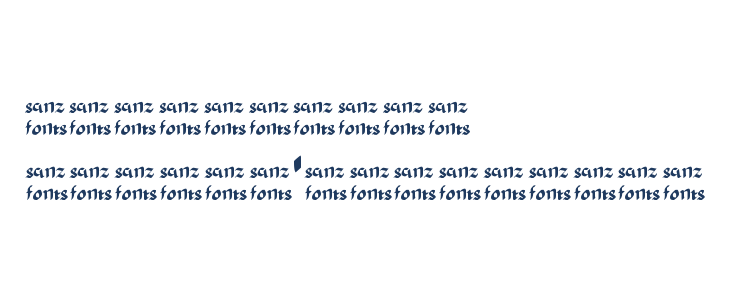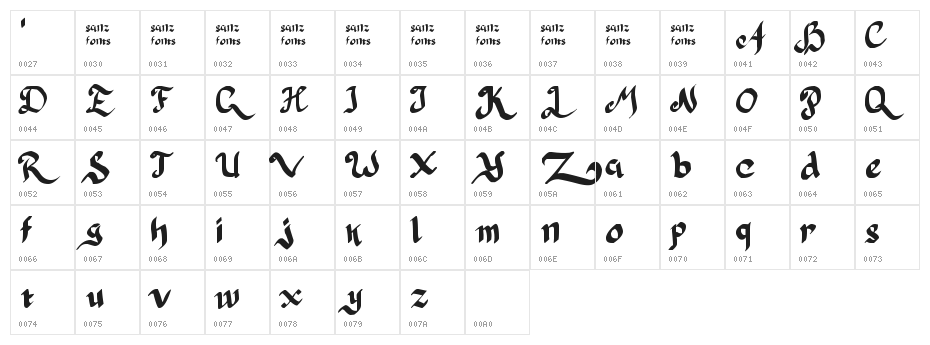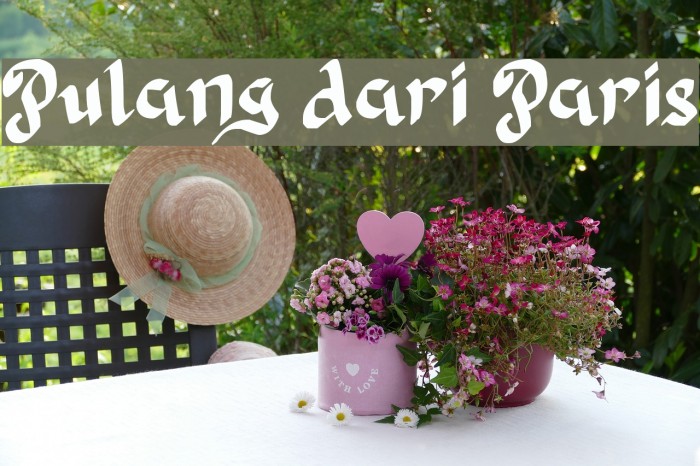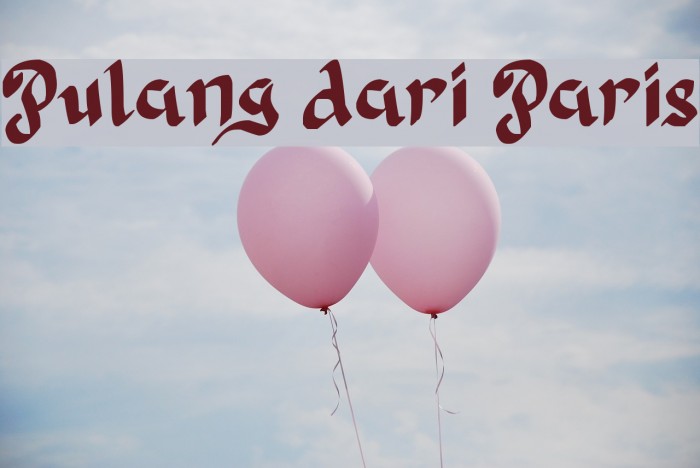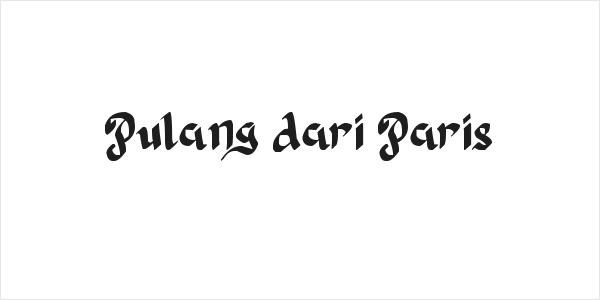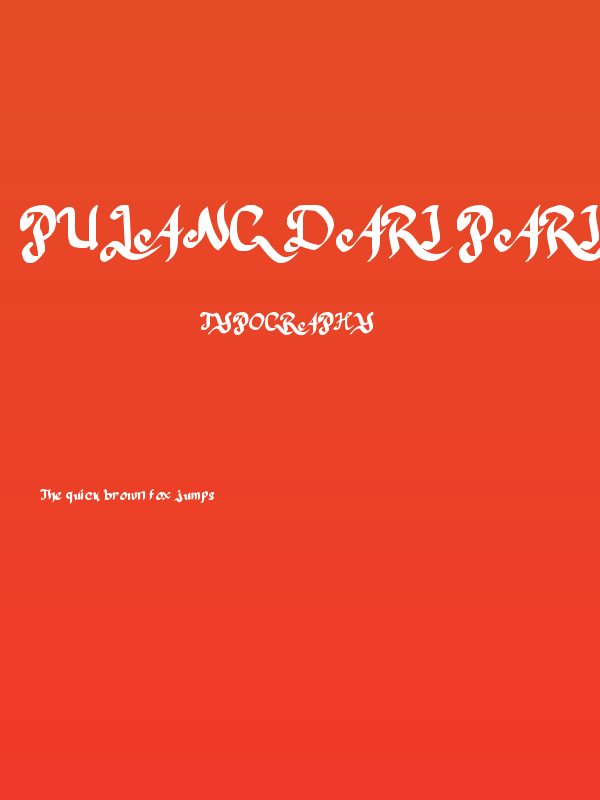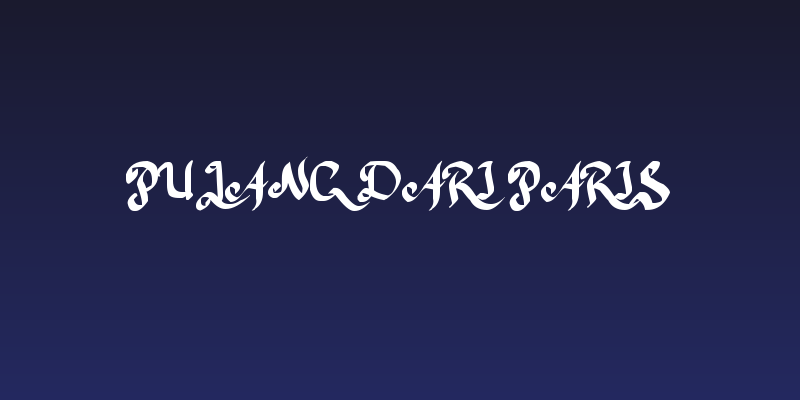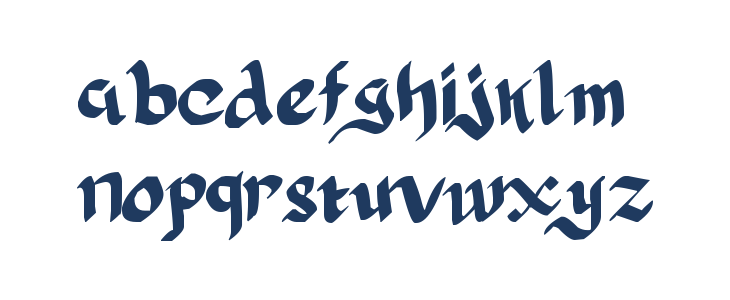
Pulang dari Paris Font
Pulang dari Paris Description
This font is a striking example of Blackletter style, characterized by its dramatic, angular strokes and intricate detailing. The uppercase letters exhibit a bold, gothic flair with sharp serifs and elaborate curves, while the lowercase letters maintain a consistent, flowing style that complements the uppercase. The numerals and special characters are equally ornate, adding to the overall medieval aesthetic. This font is perfect for projects that require a historical or traditional touch, such as invitations, certificates, or branding for vintage-themed products.
Overall StyleVintage
Proposed ProjectsIdeal for historical-themed designs, invitations, certificates, and vintage branding.